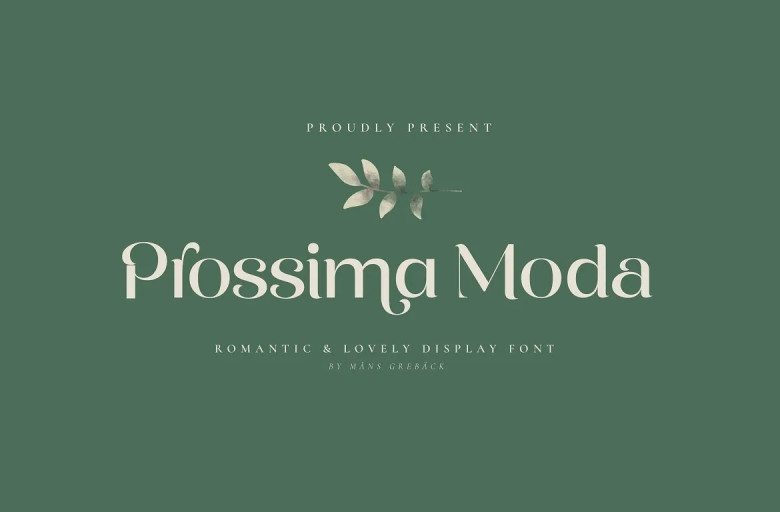
Prossima Moda Font
Prossima Moda showcases modernity and style. Its contemporary, sleek design exudes sophistication and elegance while contrasting lines add visual intrigue and interest. Prossima Moda font boasts a sweet yet cool vibe that creates an inviting ambience, each letter in Prossima Moda has been meticulously handcrafted to exhibit its beauty, creating a seamless harmony of form with function.
Smooth curves and clean, crisp lines in this font give it an elegant and polished appearance, reflecting fashion’s attention to detail and precision. Not only does this font reflect current fashion trends but it also expresses individuality through self-expression.
This font is for individuals who seek to stand out and make a statement. Constructed using advanced OpenType functionality and guaranteed for top quality, this font contains stylistic and context alternates as well as ligatures for total control and customization.
Prossima Moda Display Font